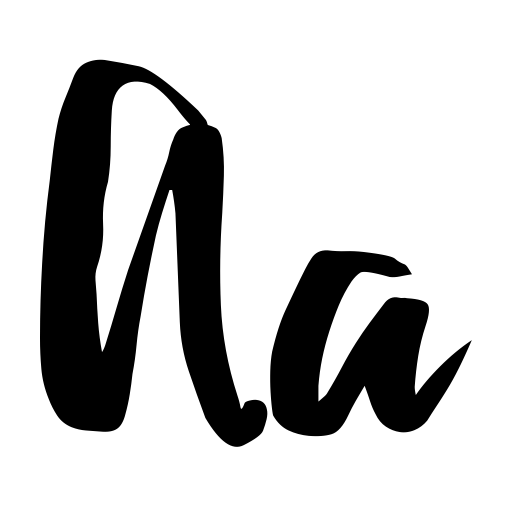
Beacon is a lively script font with an informal and hand-brushed style that gives it a vibrant, artistic feel. Its varied stroke widths and fluid letterforms make it ideal for creative branding, casual invitations, and eye-catching headlines where personality and expressiveness are key. This font works well for projects needing a warm, approachable touch with a modern, handcrafted vibe.
Beacon Font
About Beacon Font
| Designer | iTypeface.com |